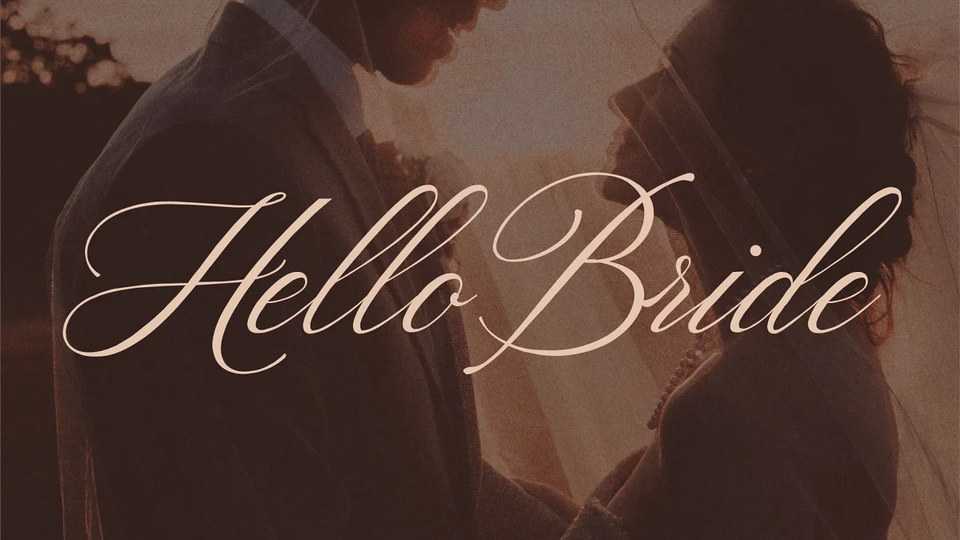
Download Hello Bride font, a classic calligraphy style typeface. Hello Bride is one of the most elegant fonts for wedding or engagement ceremony. Especially if it’s an luxury ceremony.